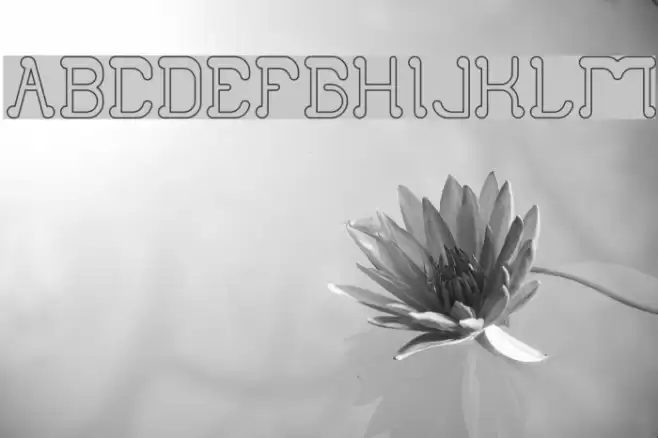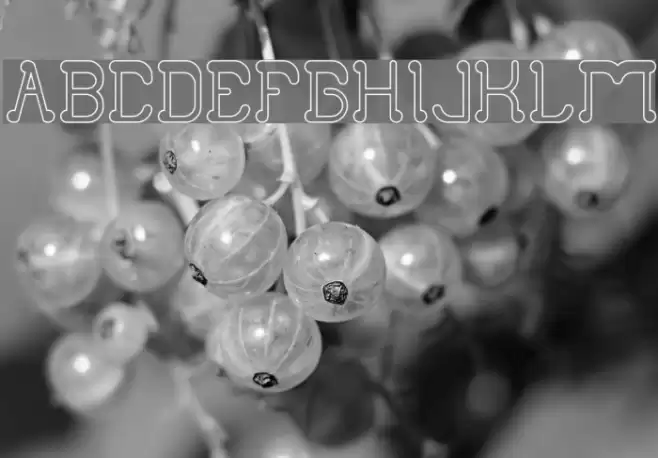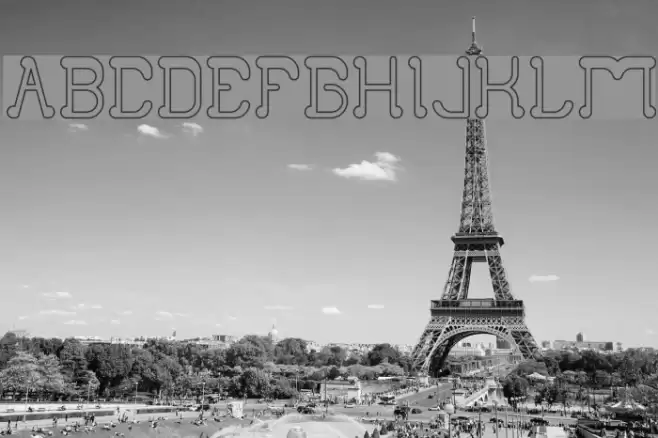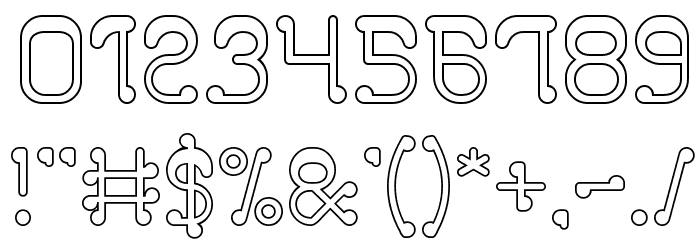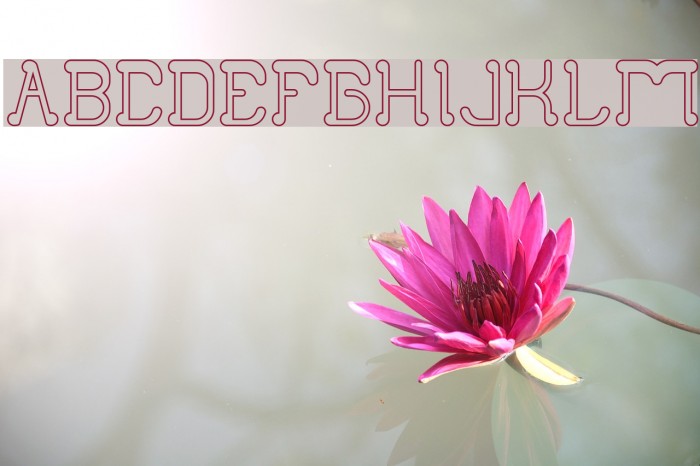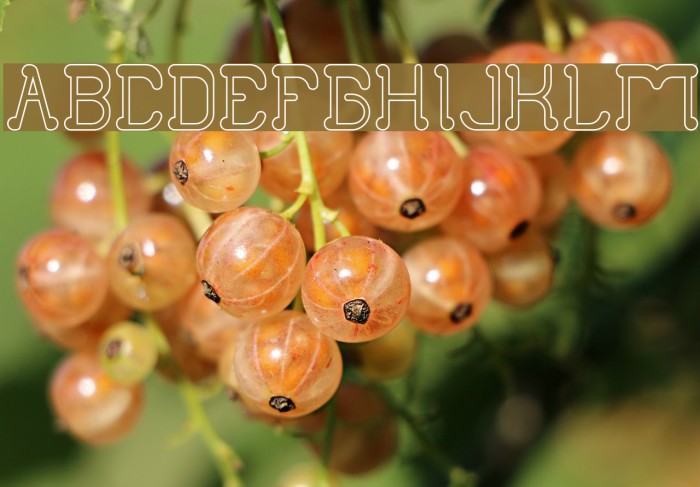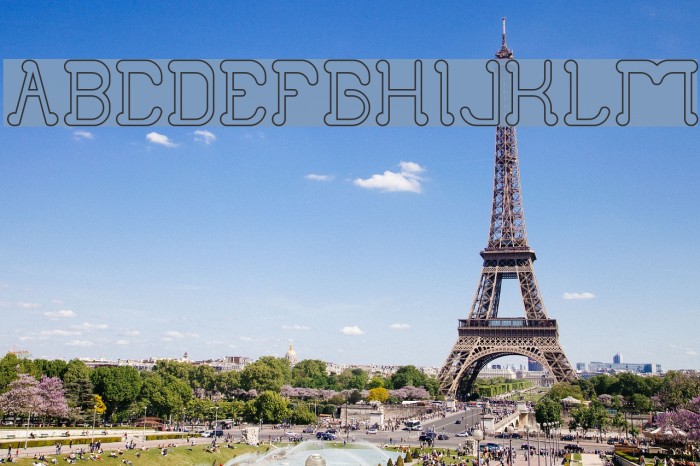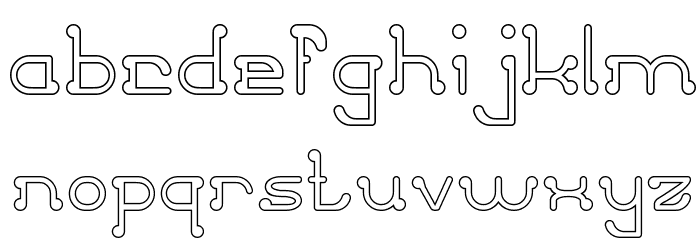
Club Golf-Hollow Font
Club Golf-Hollow Description
This font features a unique hollow design with a modern and playful aesthetic. Each character is outlined, creating a sense of openness and lightness. The uppercase and lowercase letters maintain a consistent style, with rounded edges and a uniform thickness that gives a cohesive look. The numbers and special characters follow the same design principles, ensuring a harmonious appearance across all elements. This font's distinct style makes it stand out, offering a fresh take on traditional letterforms. Its hollow nature provides a sense of space and creativity, making it ideal for projects that require a touch of modernity and fun.
A modern, hollow font with rounded edges and a playful style from Uncategorized fonts.
- Proposed Projects: Ideal for creative projects such as posters, logos, and branding materials that require a modern and playful touch.
- Use Case: Logos, Posters, Creative Branding